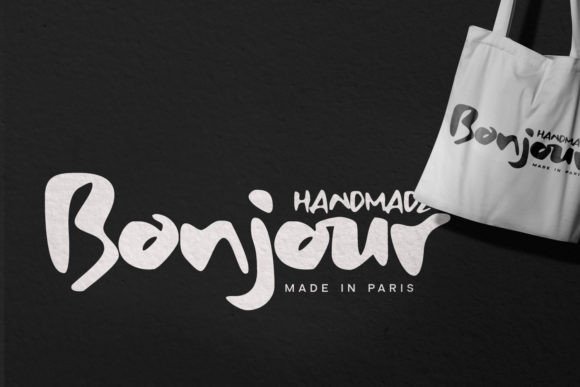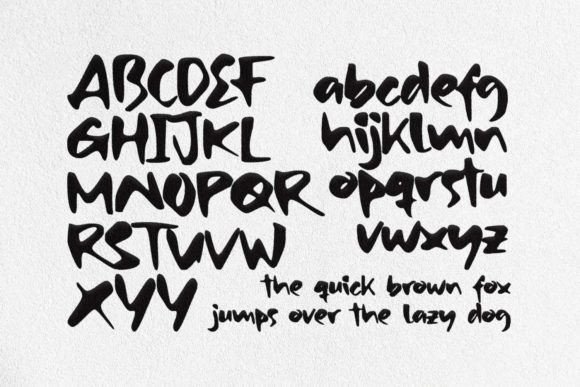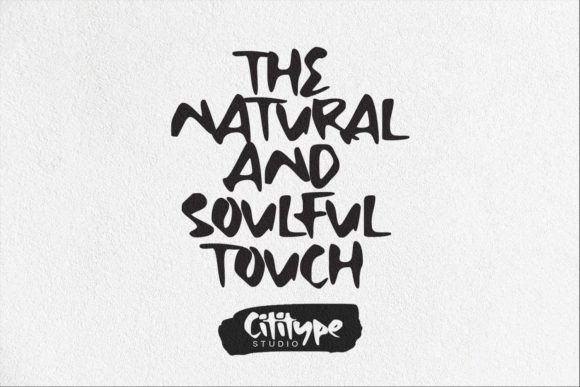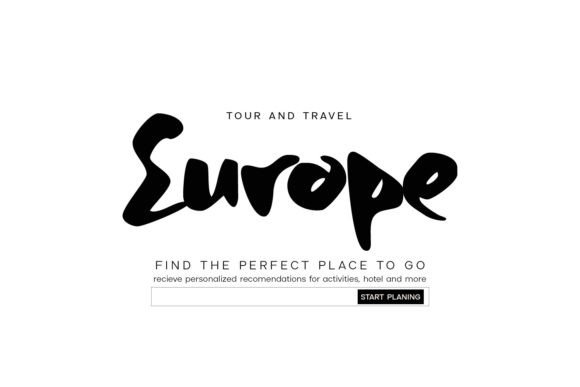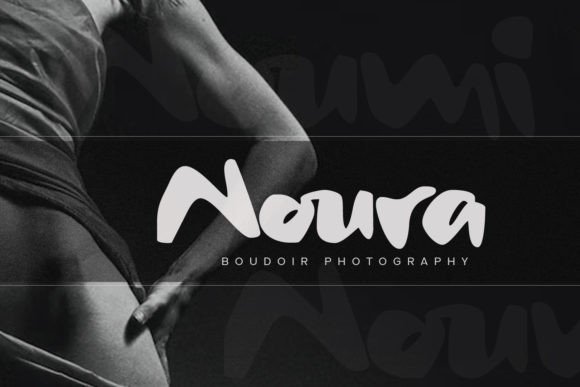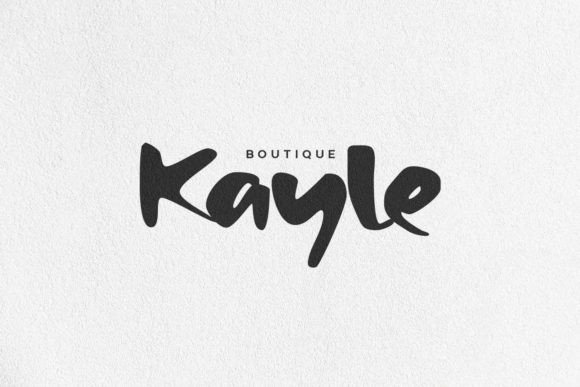
Introducing Airone Font: The Ultimate Hand-Drawn Script Display Font
Are you tired of using generic, overused fonts in your designs? Look no further than Airone Font, an authentic and organic hand-drawn script display font that’s sure to elevate your creative projects. With its natural, effortless charm, Airone Font is perfect for designers and crafters looking to add a personal touch to their work.
The Story Behind Airone Font
Airone Font is the result of meticulous craftsmanship, with every single letter carefully drawn to create a truly unique and organic feel. The font’s creator has poured their heart and soul into designing a typeface that’s both elegant and approachable, making it perfect for a wide range of applications.
What Makes Airone Font So Special?
So, what sets Airone Font apart from other fonts on the market? Here are just a few reasons why this hand-drawn script display font is a cut above the rest:
• Authentic and Organic: Airone Font is a genuine, hand-drawn typeface that exudes a sense of natural elegance. Its organic feel makes it perfect for designs that require a personal touch.
• Attention to Detail: Every letter in Airone Font has been carefully crafted to ensure that your designs look polished and refined.
• Versatile: Whether you’re working on branding, photography, watermarks, quotes, blog headers, posters, wedding invitations, or more, Airone Font is the perfect choice.
Airone Font is a dream come true for designers and crafters looking to add a touch of personality to their work. With its unique blend of elegance and approachability, this font is sure to inspire creativity and take your designs to the next level.
Use Cases for Airone Font
So, how can you use Airone Font in your designs? Here are just a few ideas to get you started:
• Branding: Use Airone Font to create a unique and memorable brand identity that stands out from the crowd.
• Photography: Add a touch of elegance to your photo watermarks or captions with Airone Font.
• Quotes and Blog Headers: Make your quotes and blog headers stand out with Airone Font’s natural, effortless charm.
• Wedding Invitations: Use Airone Font to create beautiful, one-of-a-kind wedding invitations that reflect your personal style.
• Posters: Add a touch of sophistication to your posters with Airone Font’s elegant, hand-drawn design.
Tips for Getting the Most Out of Airone Font
In conclusion, Airone Font is a truly unique and special hand-drawn script display font that’s perfect for designers and crafters looking to add a personal touch to their work. With its authentic, organic feel and attention to detail, Airone Font is sure to elevate your designs and take your creativity to the next level. So why wait? Try Airone Font today and see the difference for yourself!